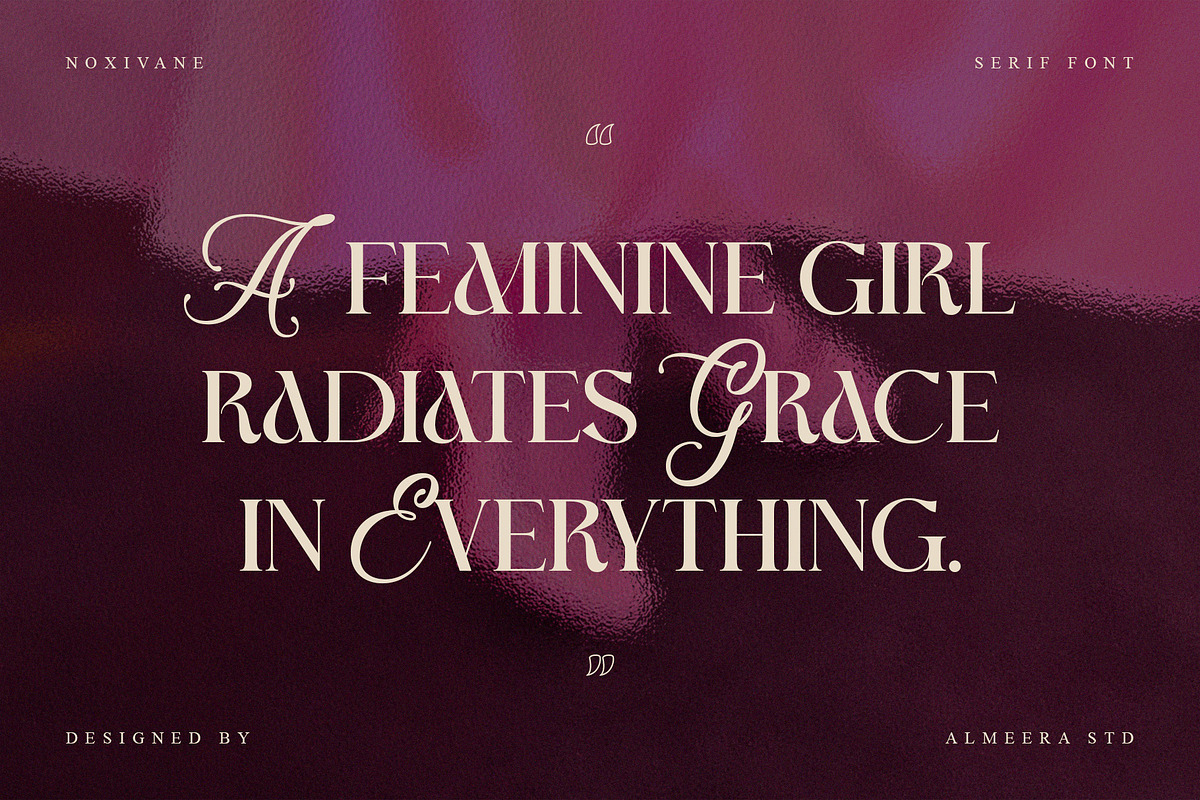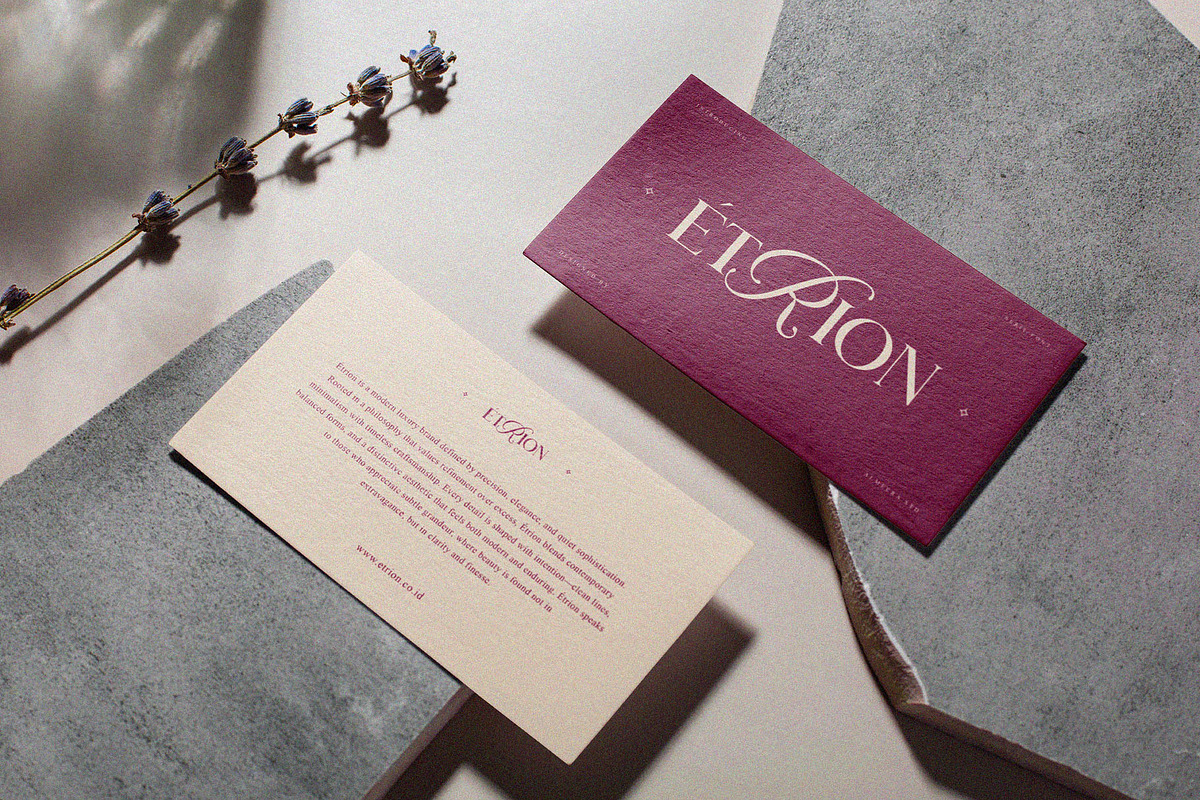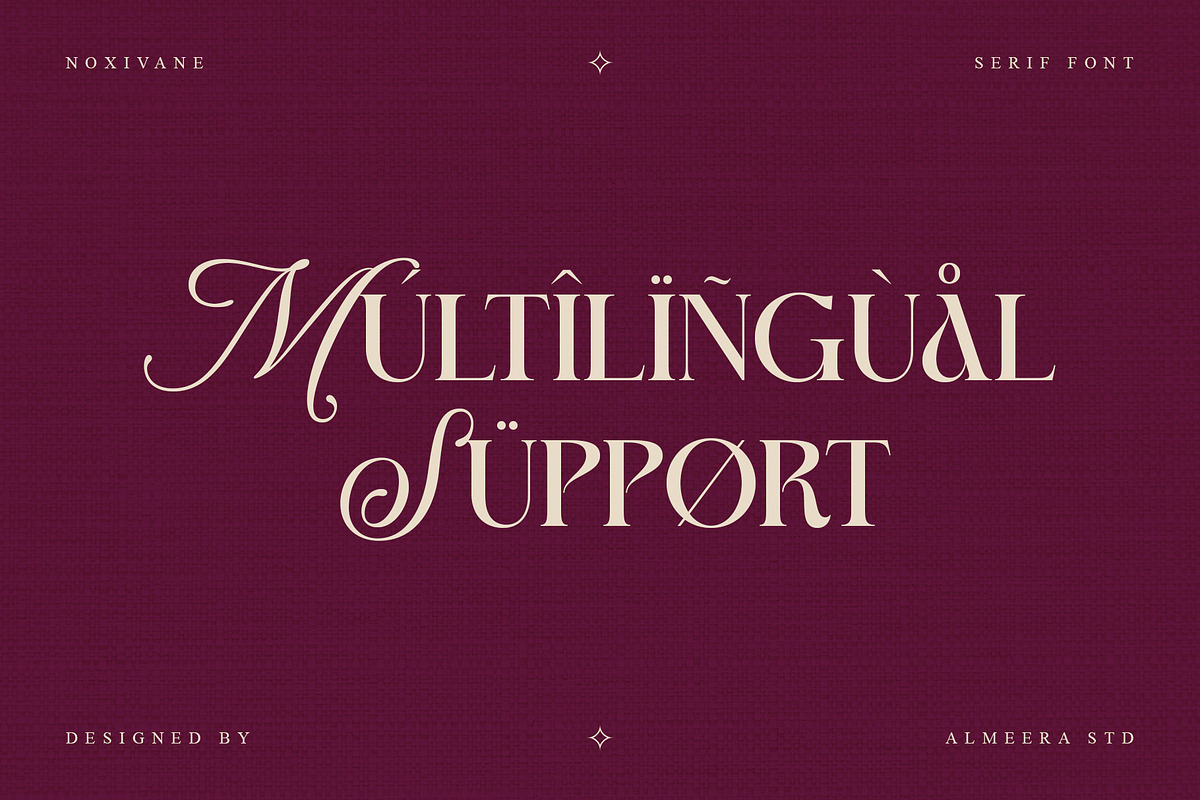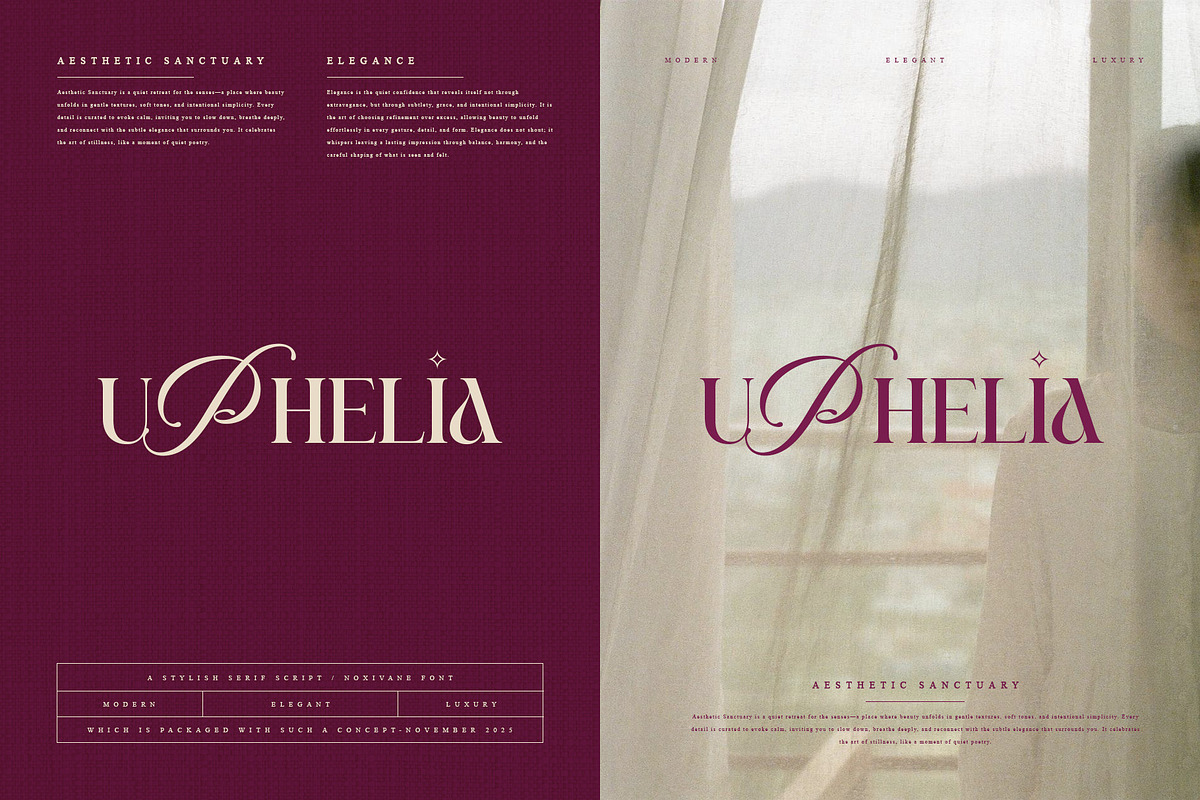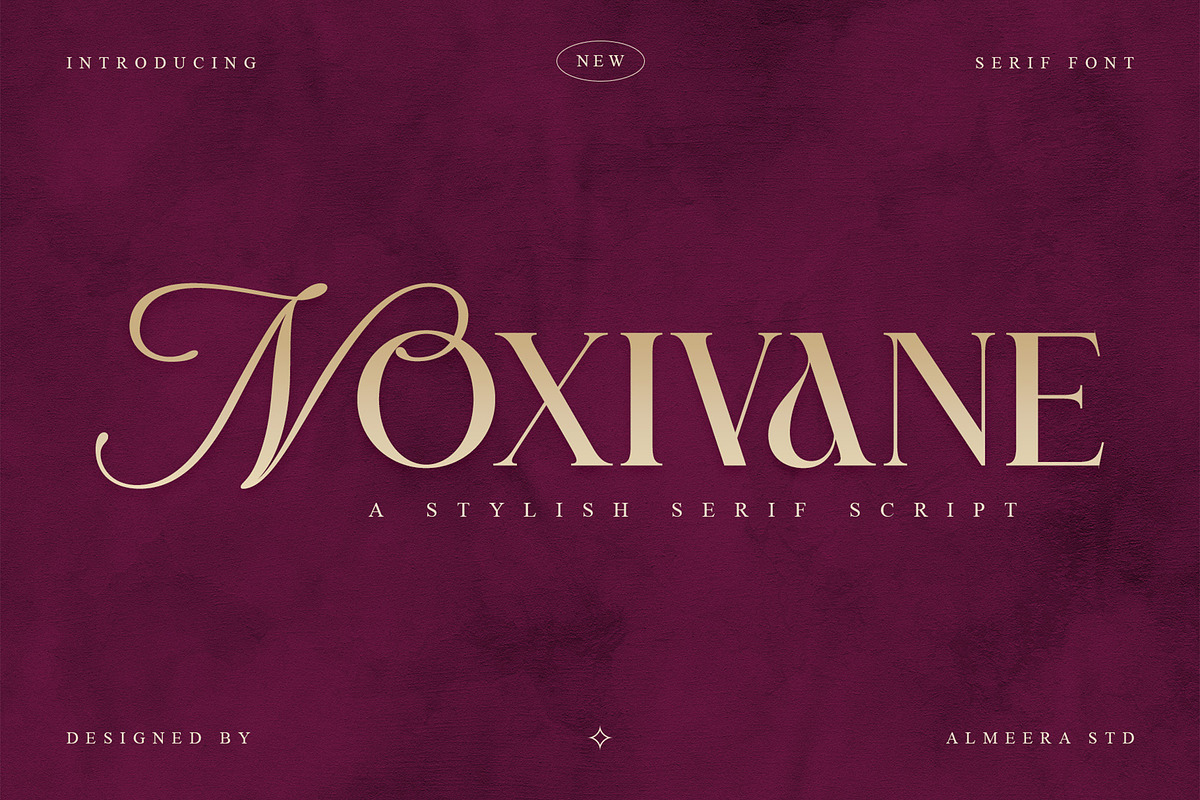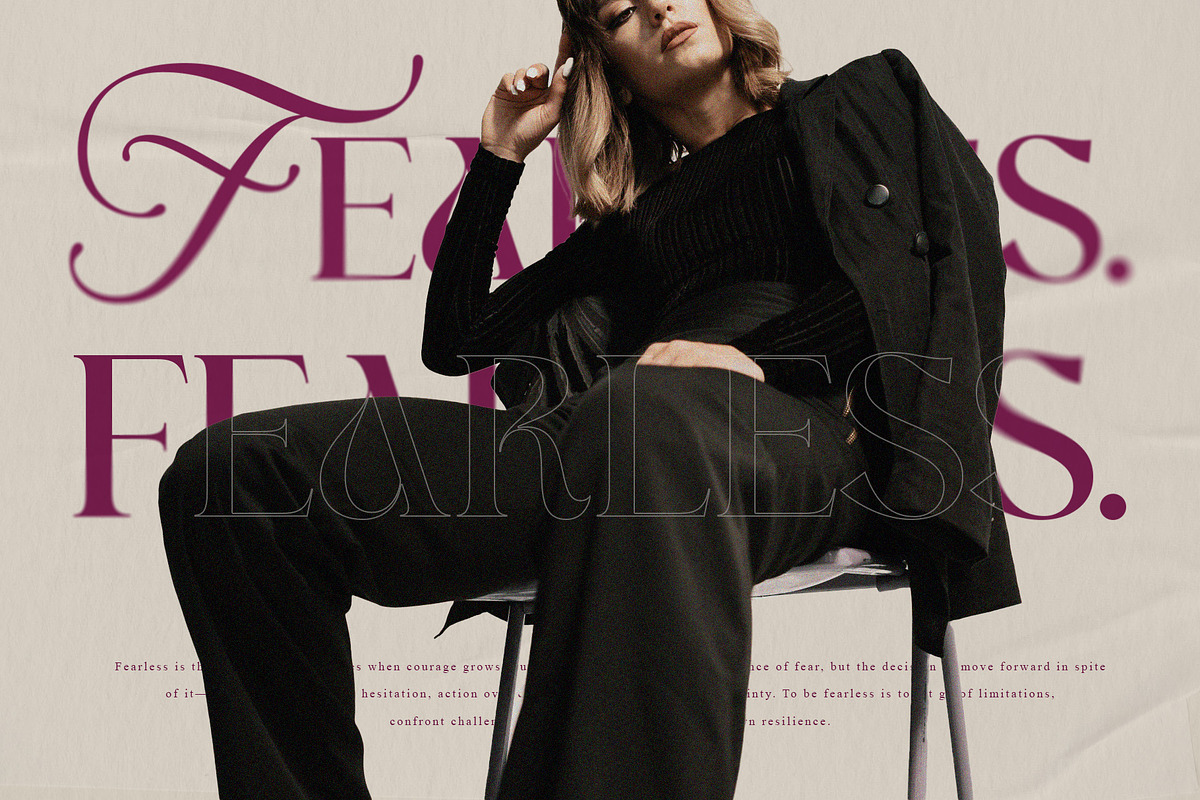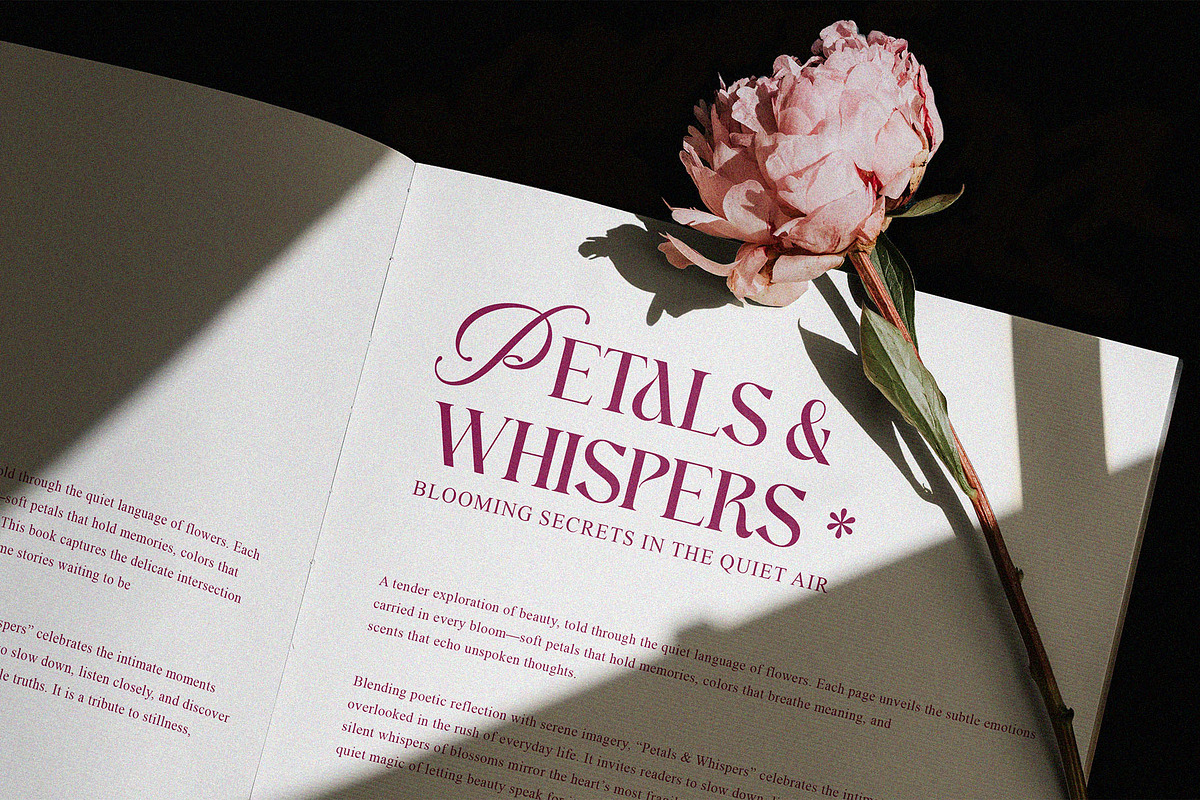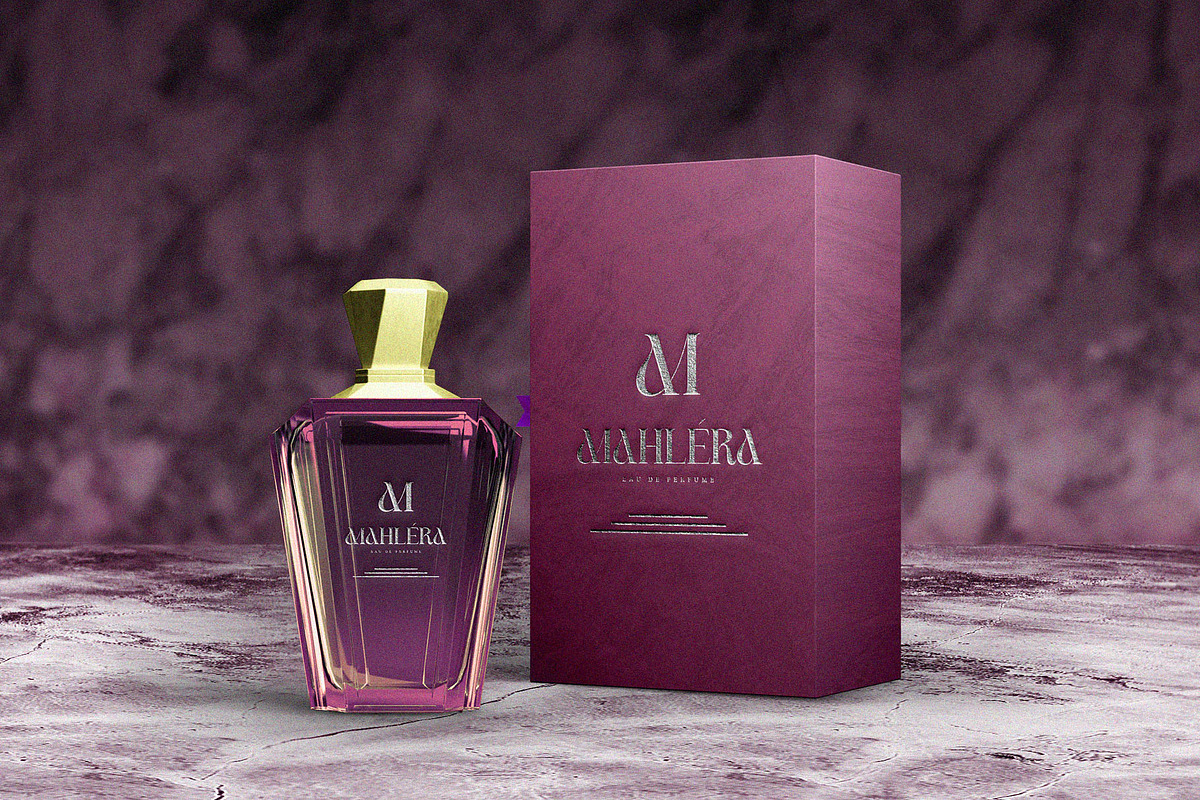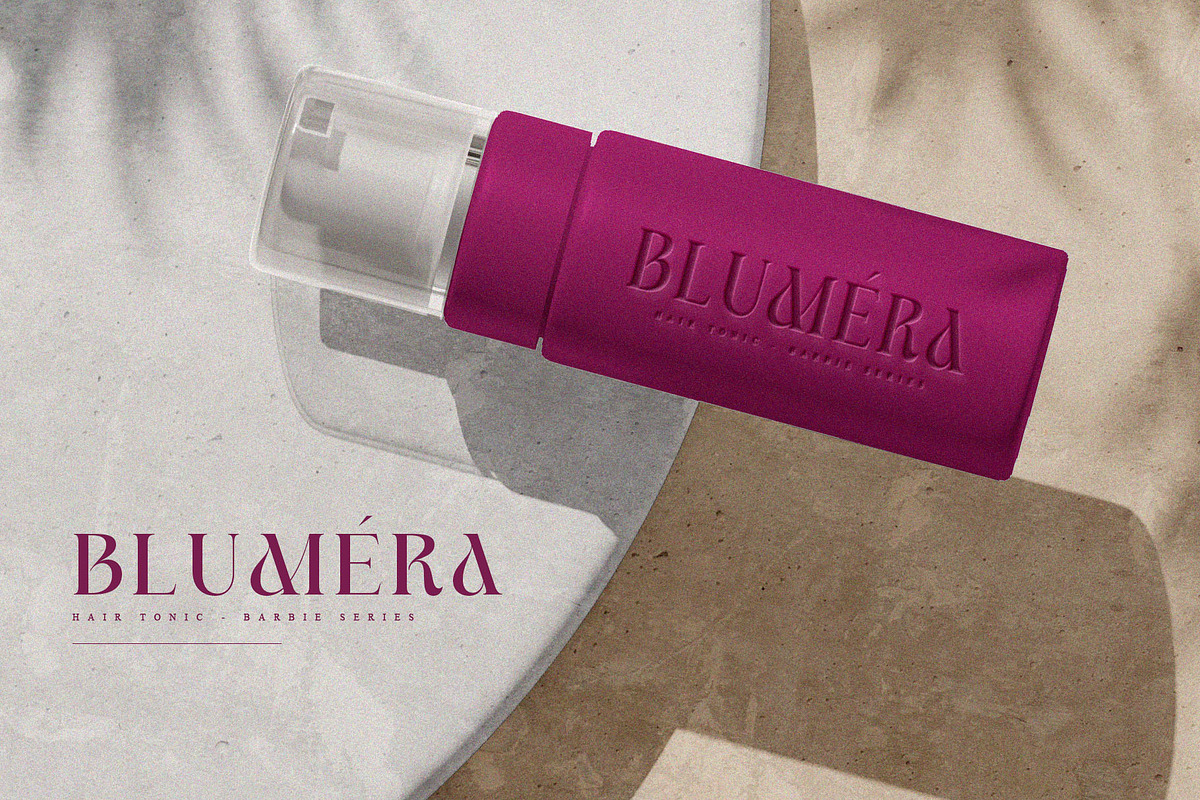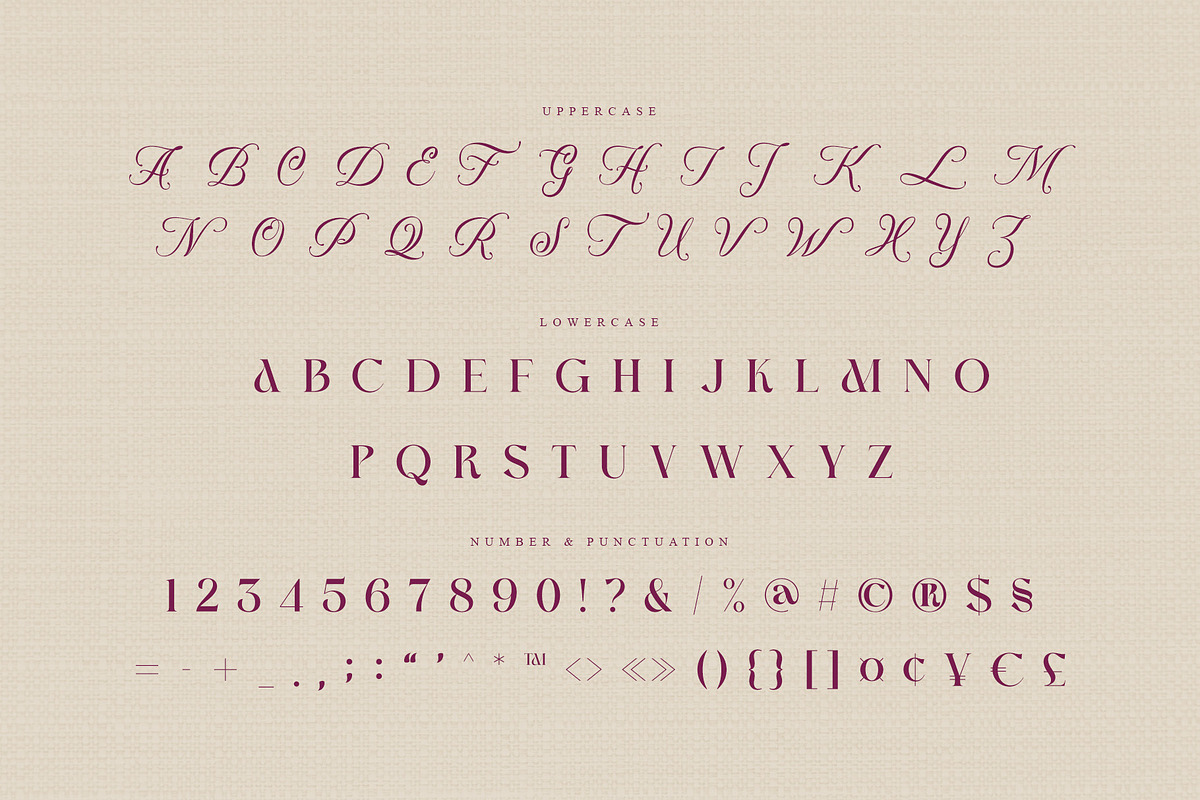
Noxivane — Stylish Serif Script
Noxivane is a stylish serif script font crafted with elegance, confidence, and character. Its refined serif foundation combined with graceful script details gives this font a luxurious and modern presence. Ideal for high-end branding, editorial headlines, packaging, invitations, and creative visual identities.
Noxivane’s smooth curves and polished contrast deliver sophistication while maintaining clarity. Designed for designers who want a serif script with strong personality and timeless appeal.
- Numbers, fractions
- Punctuation and symbols